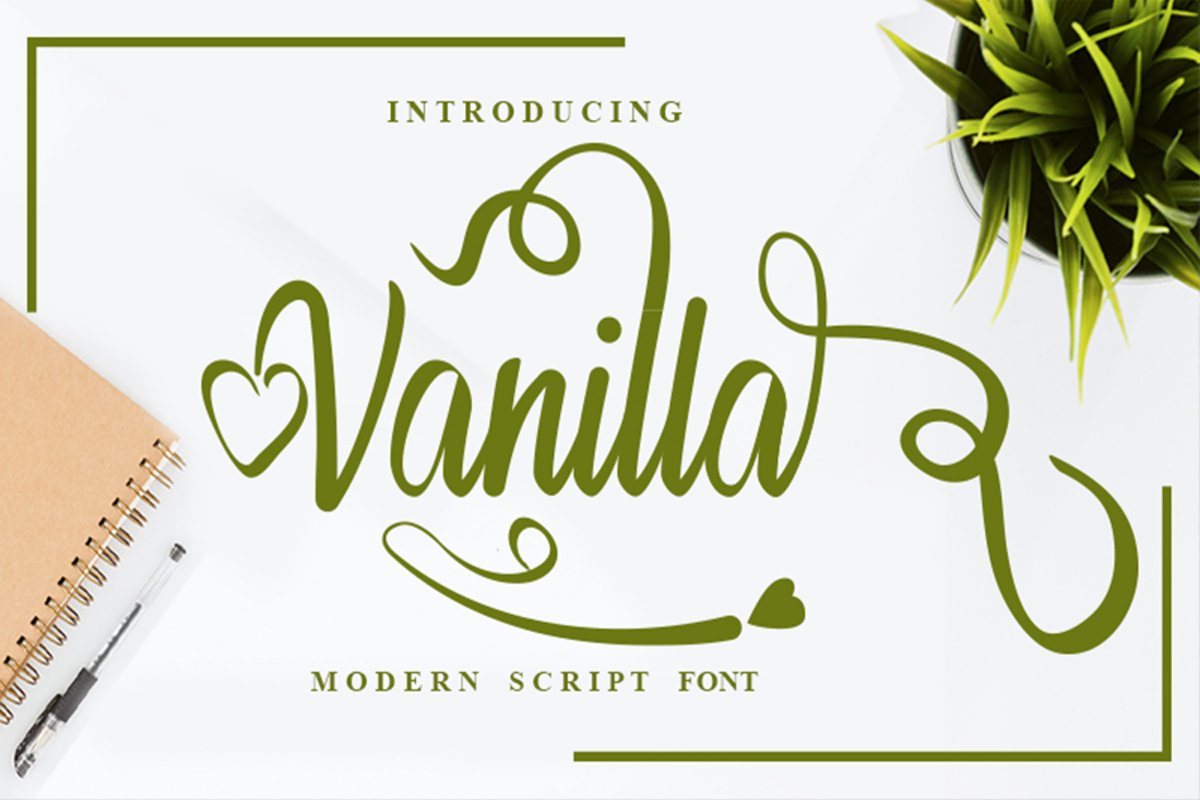
Vanilla
Vanilla is a magical handwritten font carefully created with a touch of elegance. Fall in love with its authentic feel and use it to create gorgeous wedding invitations, beautiful stationary art, eye-catching social media posts, and cute greeting cards.
+More than 100+ Glyphs
+More than 43 Languages
+PUA-Encoded for many alternates and ligatures